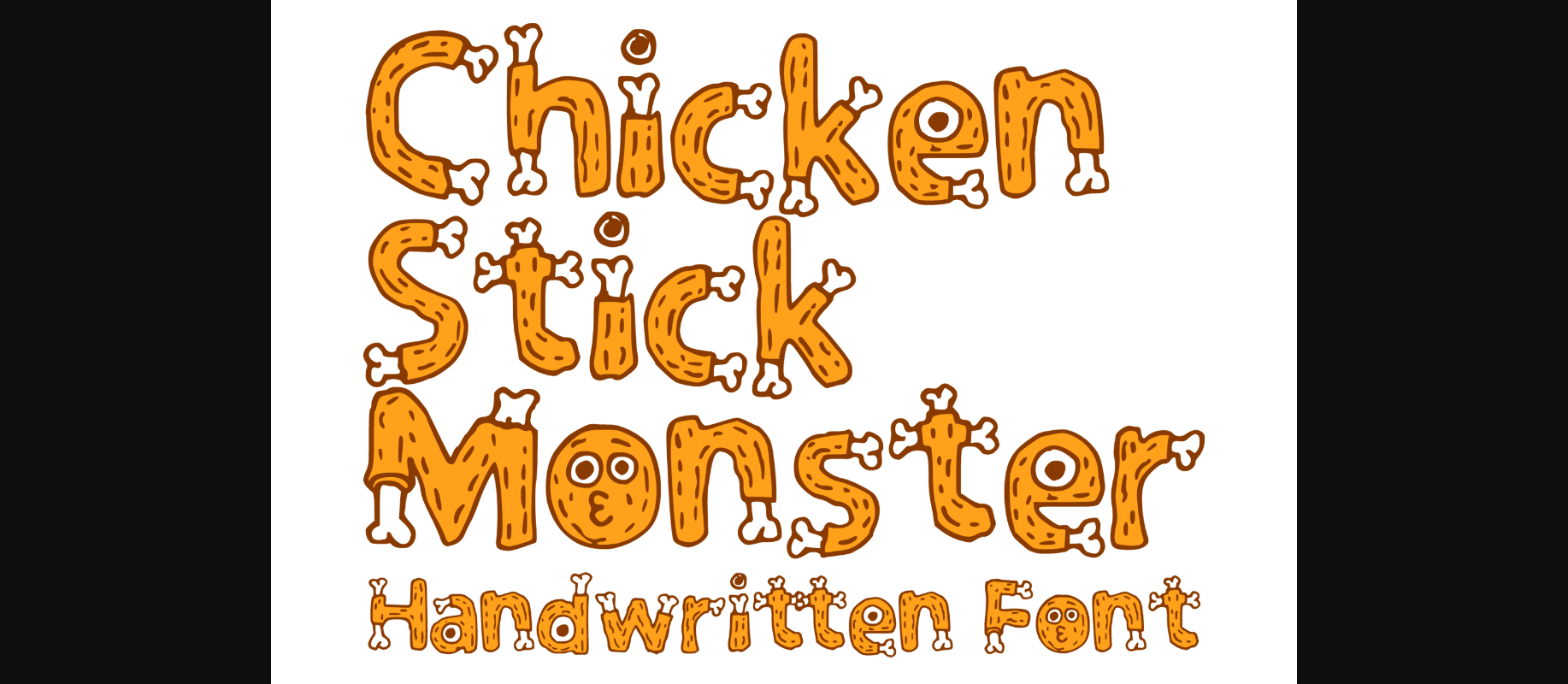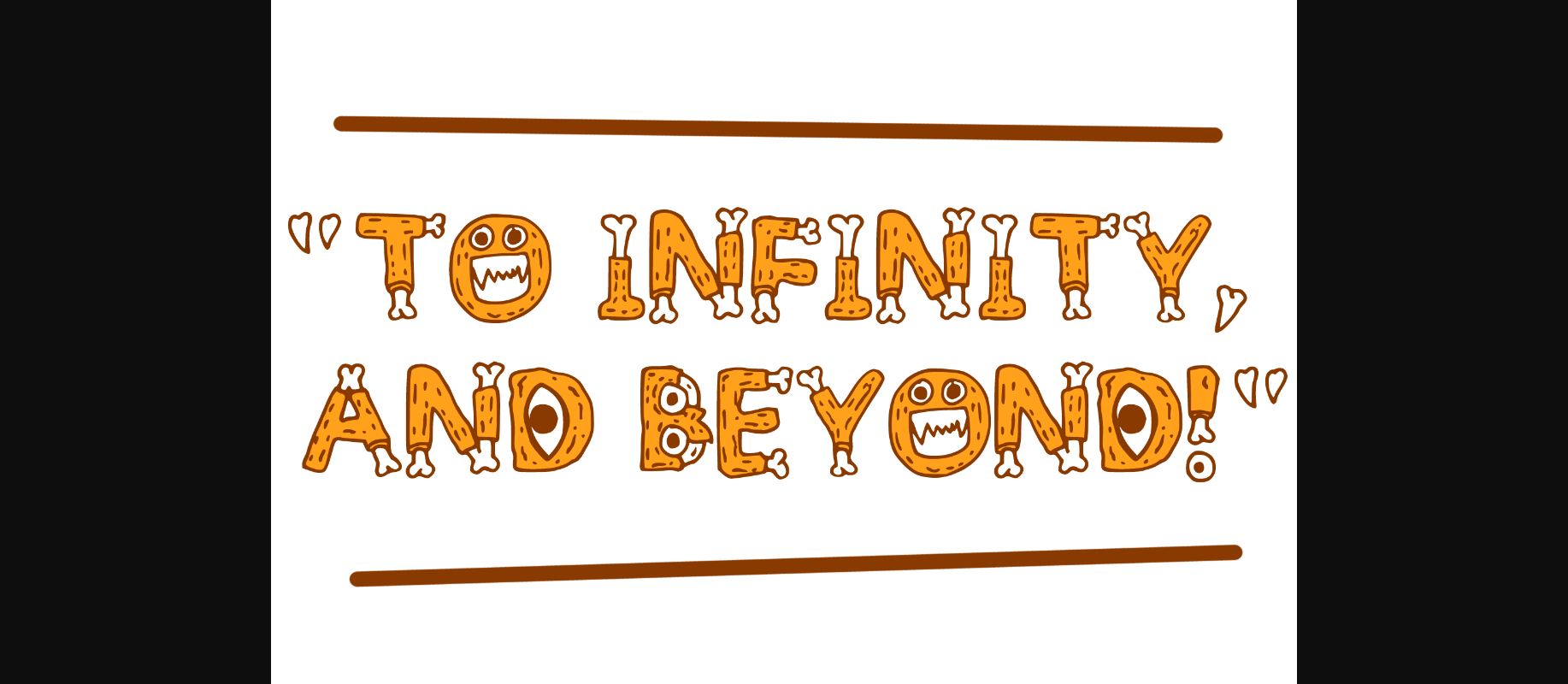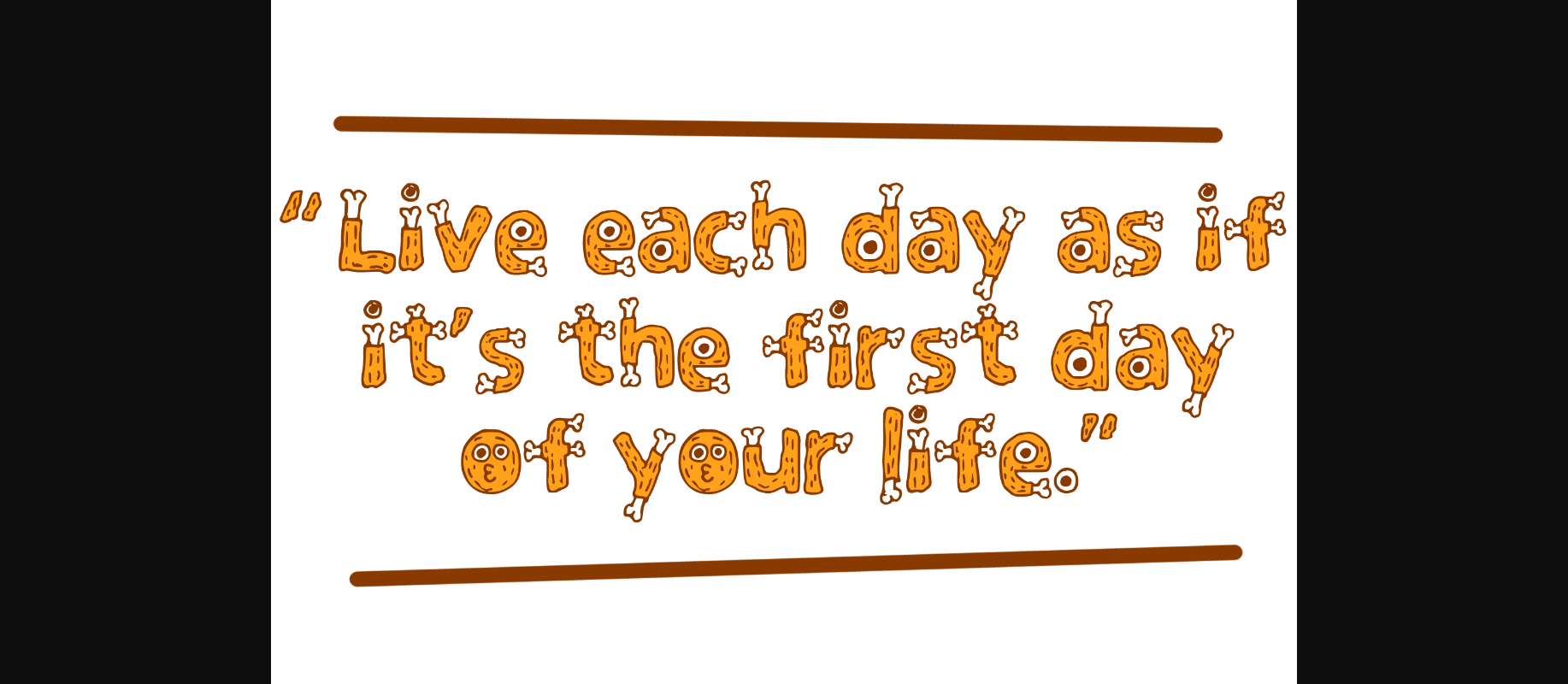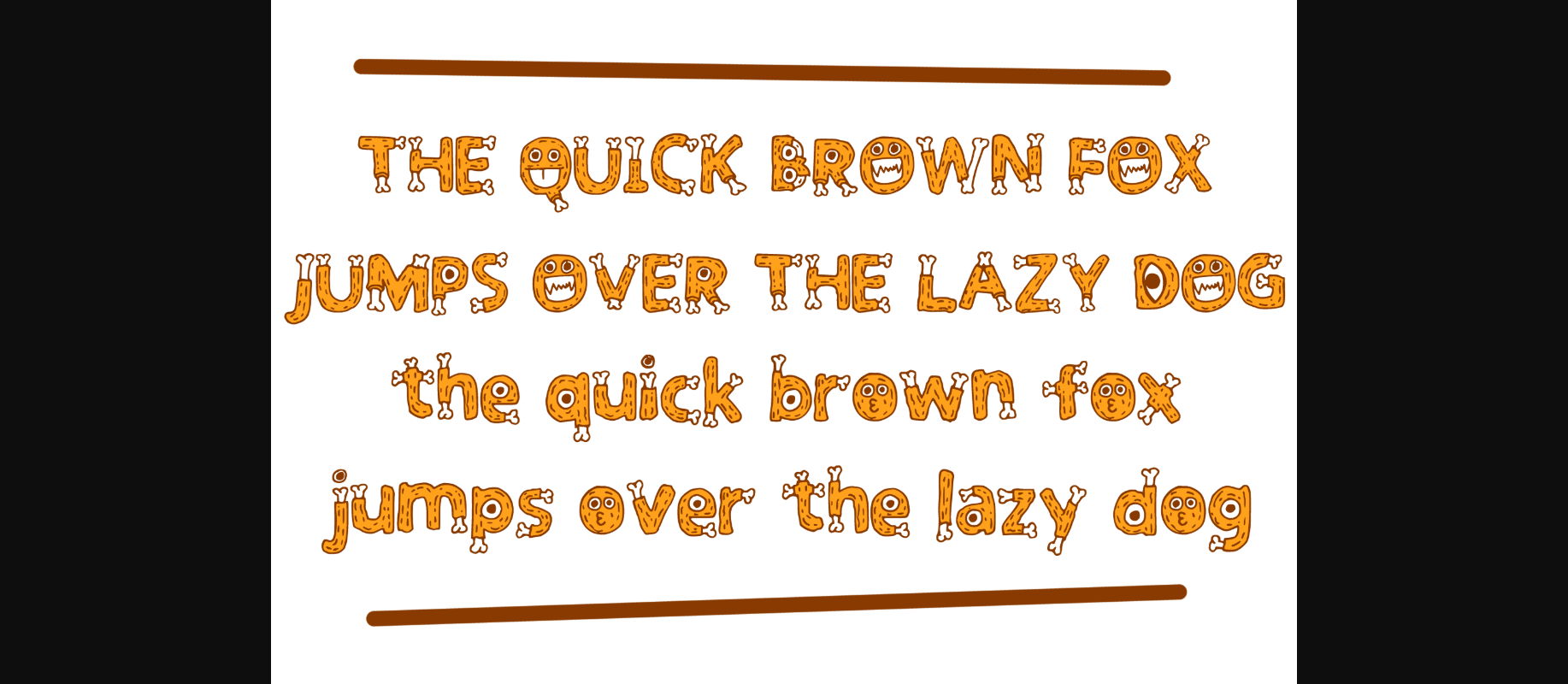
Chicken Stick Monster Font
About Chicken Stick Monster Font
Chicken Stick Monster is a whimsical display font that took inspiration from chicken sticks and monsters. You can use it for anything ranging from t-shirts, kids’ book designs, greeting cards, stickers, and posters, or anything that needs a casual touch. Try it to create lovely designs and feel the good vibes with it!